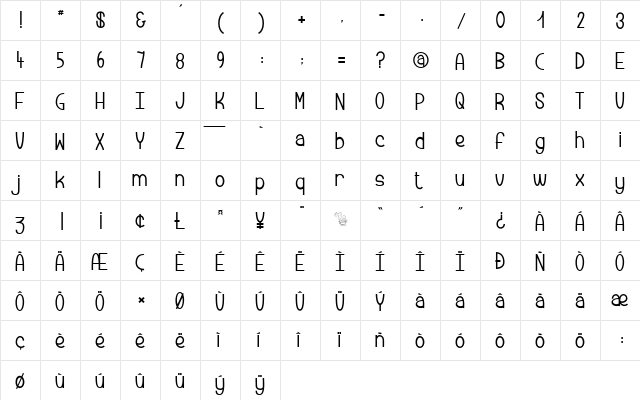
Peanut Butter Cookies Regular
Design Context for Peanut Butter Cookies Typeface
Peanut Butter Cookies is a composed and adaptable typeface that performs quietly and consistently across a wide range of design contexts.